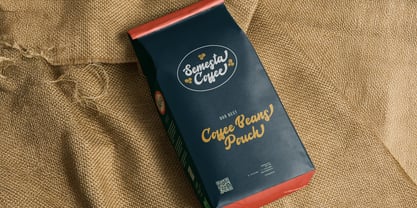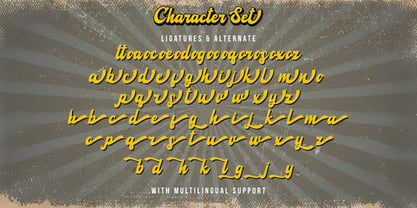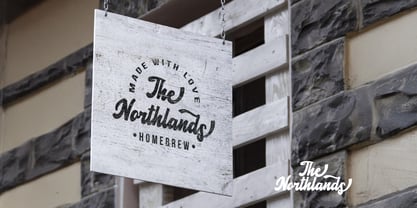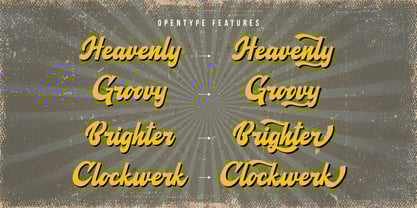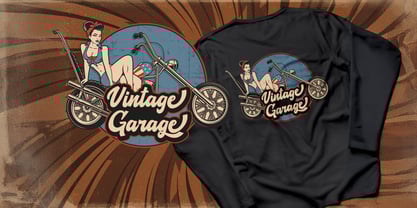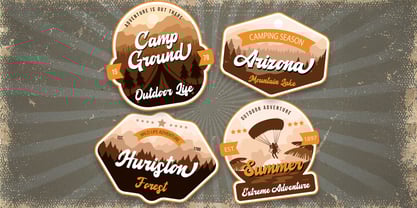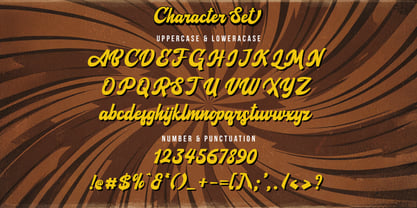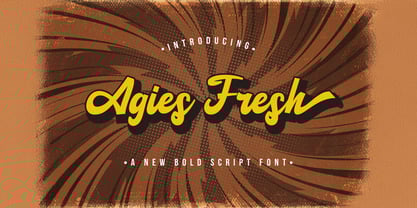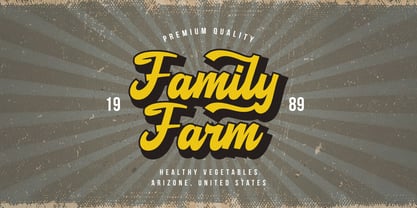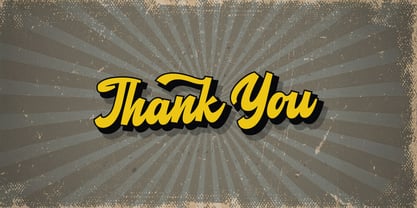
The Agies Fresh Font Family was designed by Virgiawan Listanto and published by Stringlabs Creative Studio. Agies Fresh contains 1 styles. More about this family
Agies Fresh is a vibrant and bold retro-inspired script font that brings a fun, nostalgic touch to your designs. With its strong, confident lines and playful curves, this font channels the energy of classic vintage styles while offering a modern twist.
Designers: Virgiawan Listanto
Foundry: Stringlabs Creative Studio
Agies Fresh